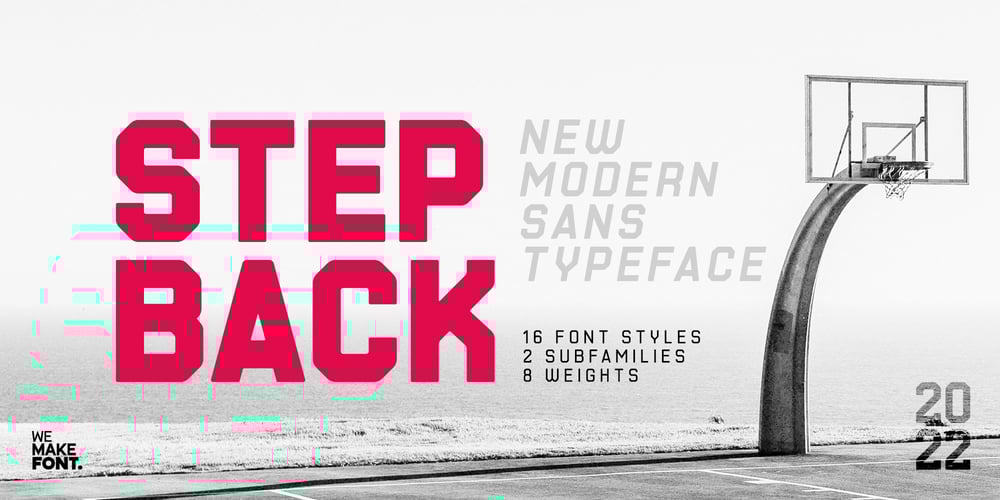
Stepback Font Family was designed by Rodolfo Seabra and published by We Make Font. Stepback contains 18 styles and family package options. Our new font family is modern and exclusive, designed for the most varied uses. With sober and sporty lines, it offers a rounded finish with a lot of sophistication. It ranges from ExtraLight to Black, offering 8 weight options, with regular and italic variations. With 499 glyphs, it can be used in over 90 languages, with a crisp layout and strong contours.